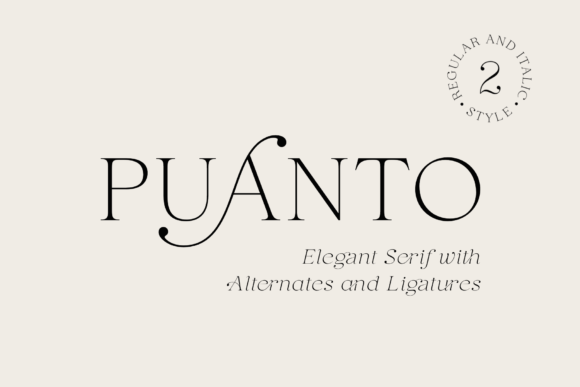
Introducing Puanto Font: The Epitome of Elegance and Versatility for Online Marketers
In the realm of online marketing, where every visual element counts, introducing Puanto Font, a serif masterpiece that elevates your digital presence to new heights.
Puanto, created by the visionary Pasha Larin, is an elegant serif font that captivates audiences with its timeless beauty and versatility. Available in two distinct styles, regular and true Italic, this font is a treasure trove of creative possibilities.
Step into a world of sophistication with Puanto's regular style, where classic meets contemporary. Its clean lines and refined curves exude an air of authority, making it the perfect choice for logos, branding, and business cards. Watch as your designs transform into symbols of professionalism and excellence.
Embark on a journey of dynamic expression with Puanto's true Italic style. Its graceful strokes and flowing rhythm bring a touch of elegance to any project. Create wedding invitations that capture the essence of romance, packaging that enchants customers, and titles that command attention. The possibilities are boundless.
Puanto's lightweight design ensures effortless readability, even in the most intricate designs. Its characters dance across the screen, captivating audiences with their clarity and distinctiveness. Whether it's a website, social media post, or marketing collateral, Puanto ensures your message shines through with unwavering impact.
Unleash your creativity with Puanto's OpenType features and alternates, a treasure chest of stylistic variations. Experiment with ligatures that add a touch of flair and individuality to your designs. Craft unique and memorable compositions that leave a lasting impression.